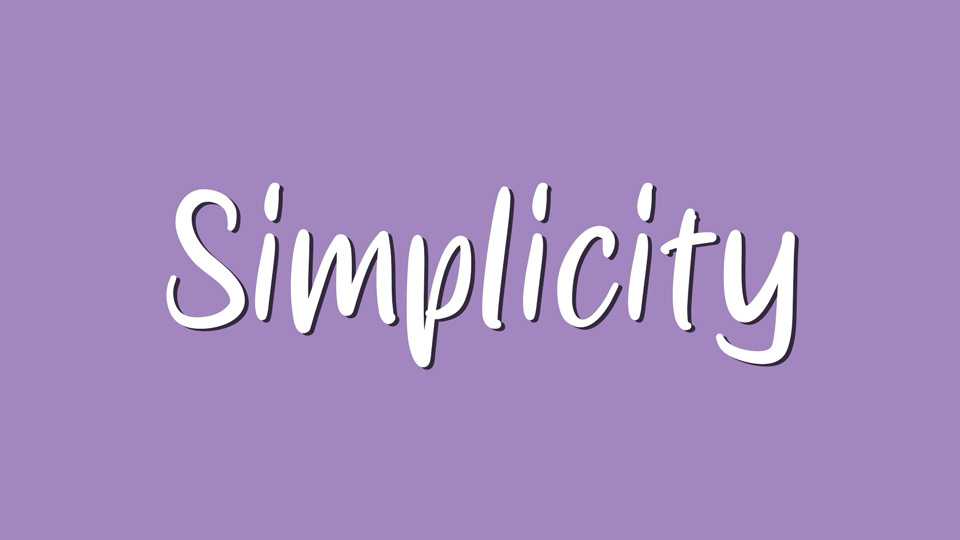
Download Simplicity font, a simple and sweet handwritten font that will add a charming, natural touch to any projects. Handcrafted with care, Simplicity font is well suited to create everything from notes and quotes to short texts – all with an authentic feel.